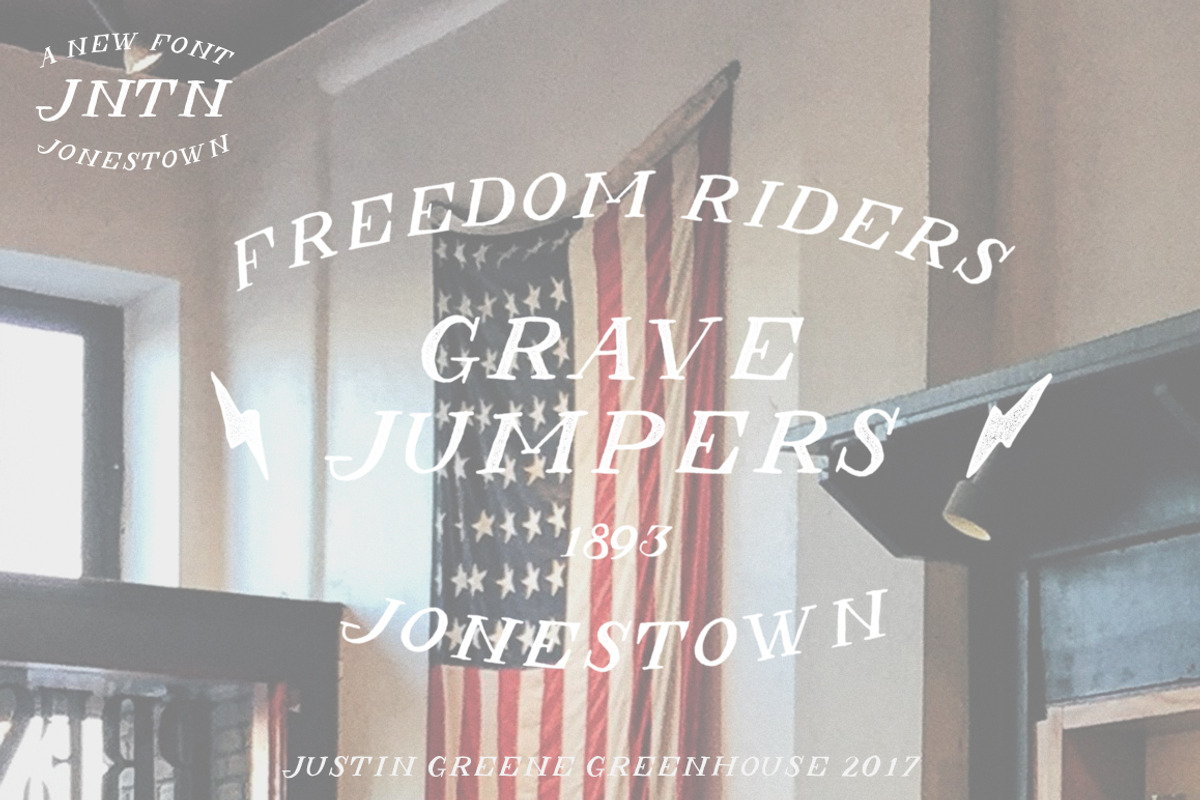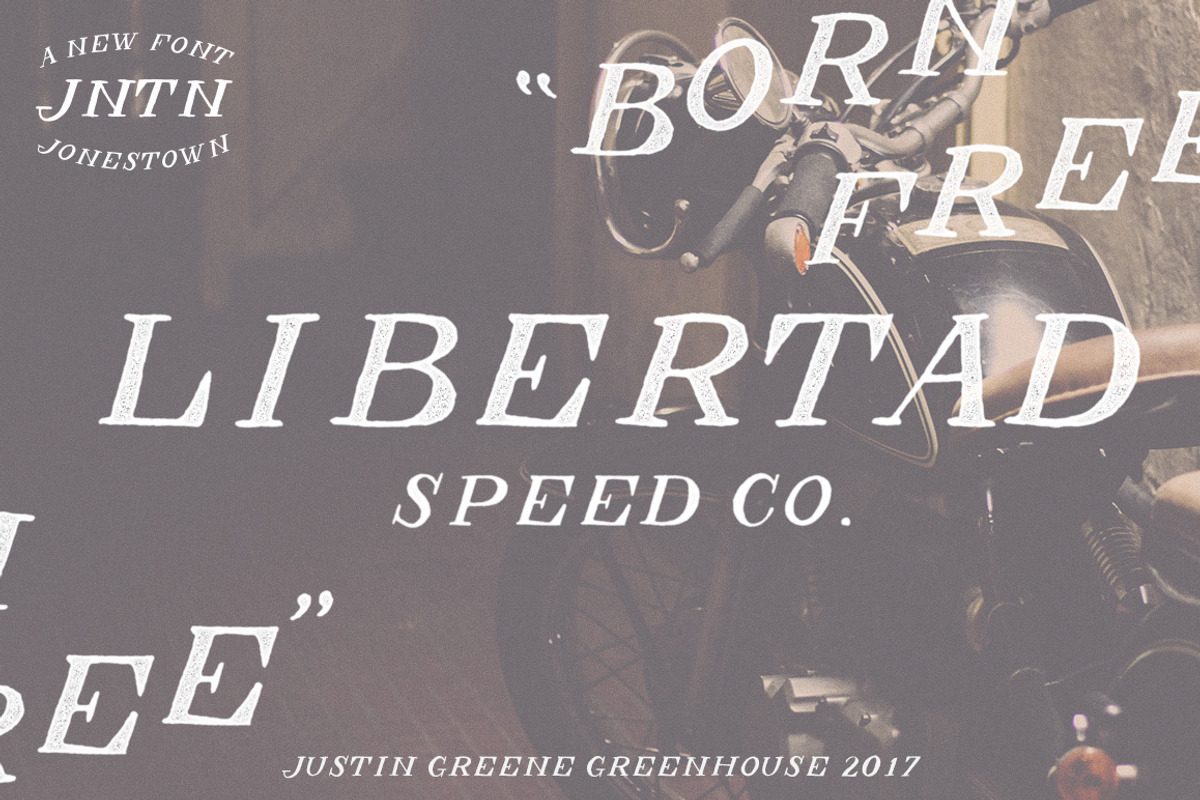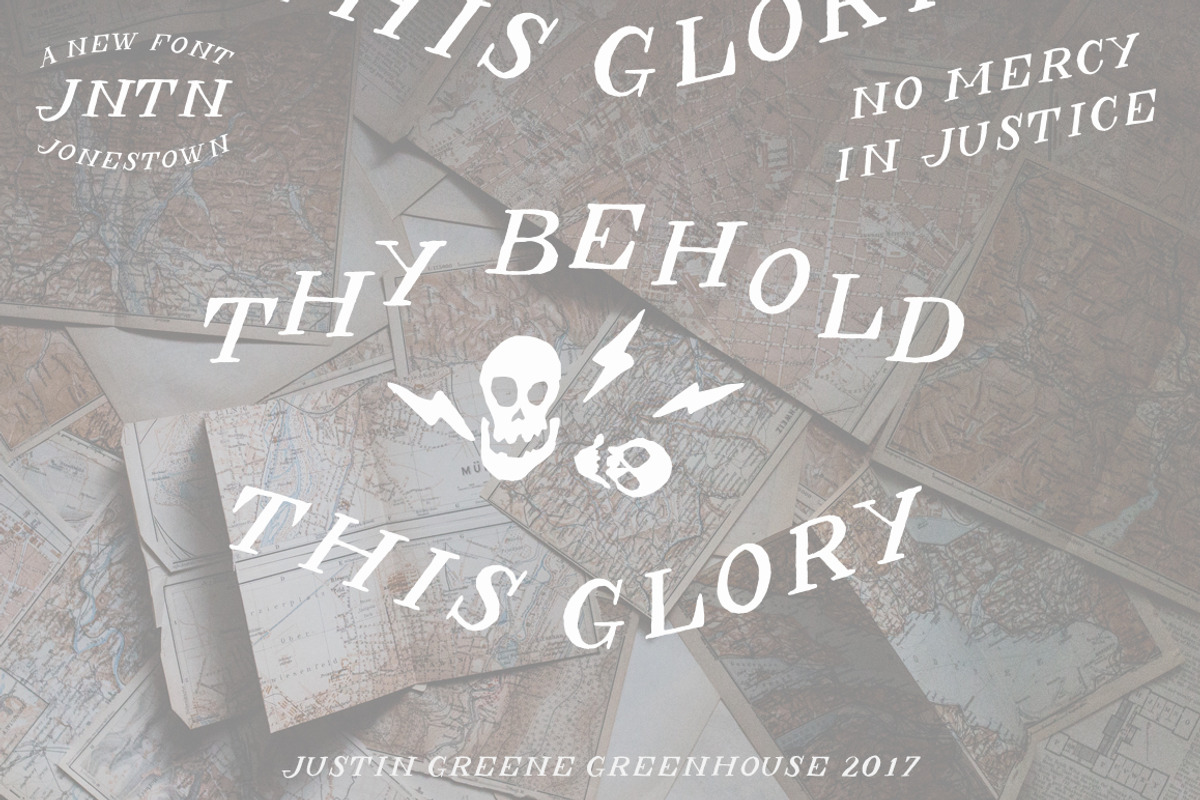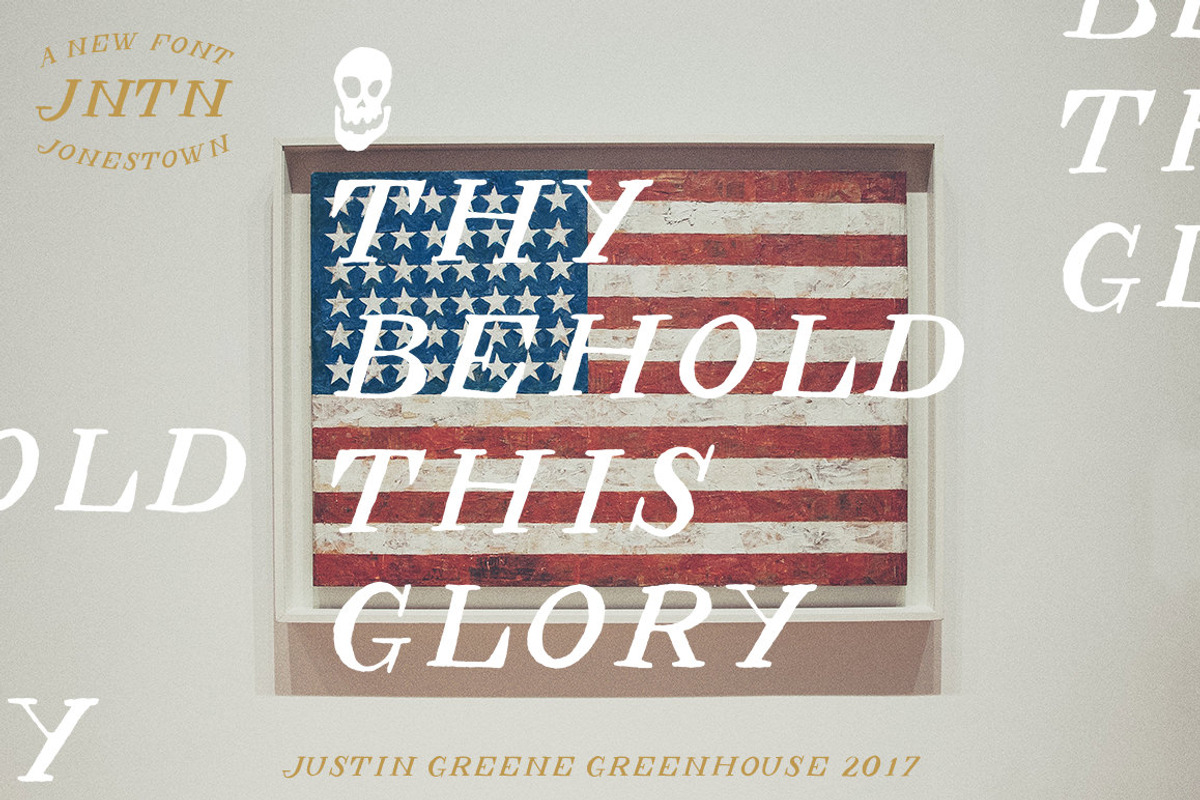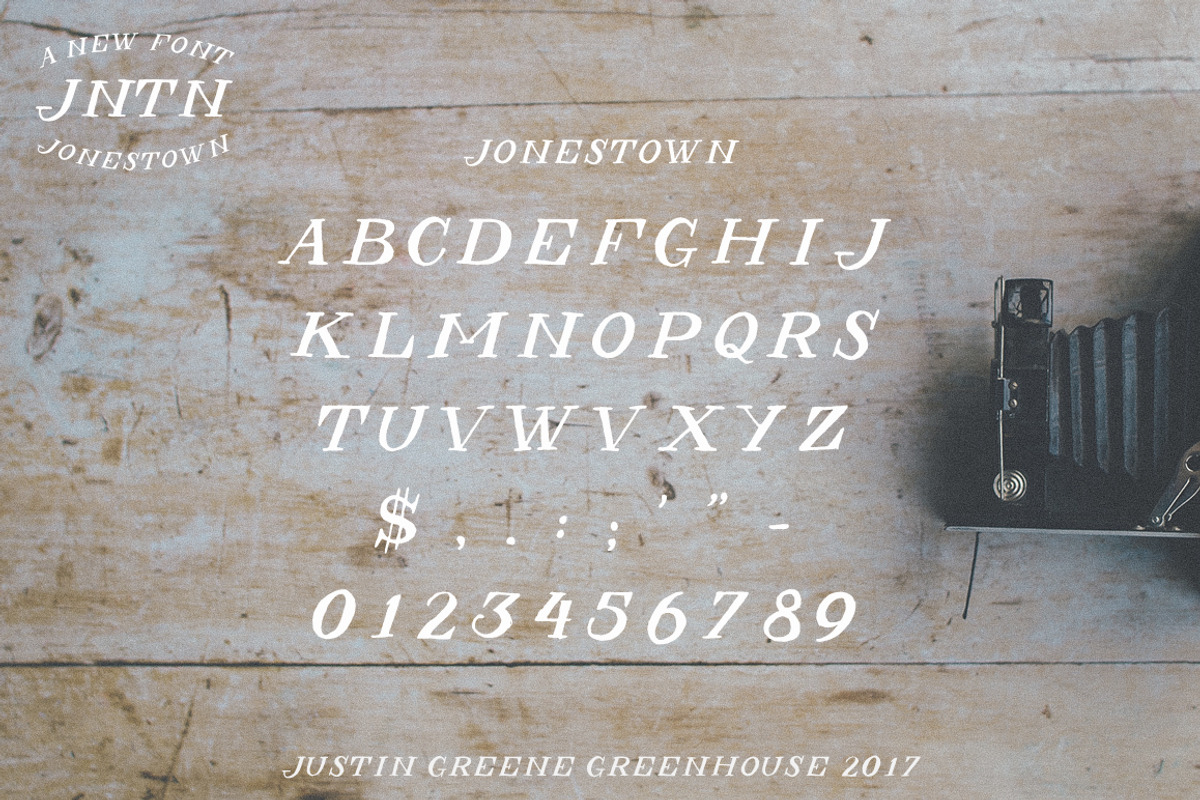
Jonestown: A Hand Drawn Font
JONESTOWN is a new hand drawn display typeface, available from Greenhouse Supply Co. by Justin Greene.
Great for Logos, Stationary, Posters, Apparel, literally everything design related. Perfect for that Vintage signage & hand drawn inspired feel.